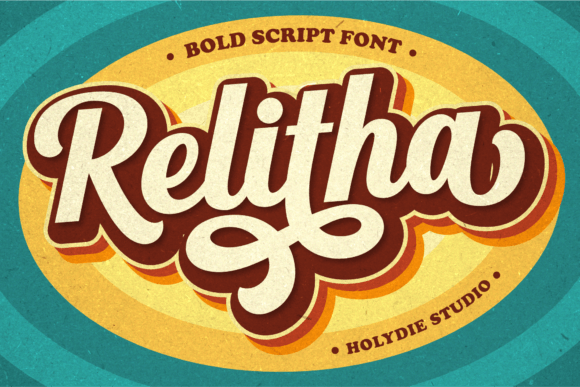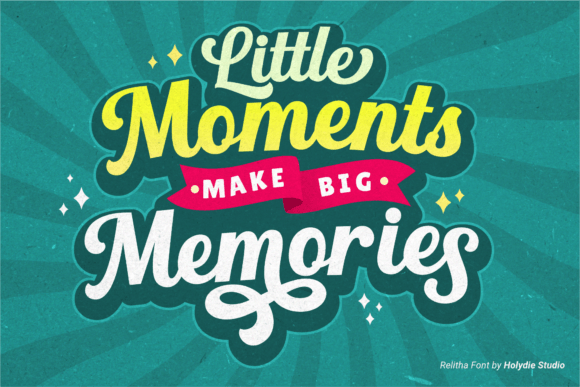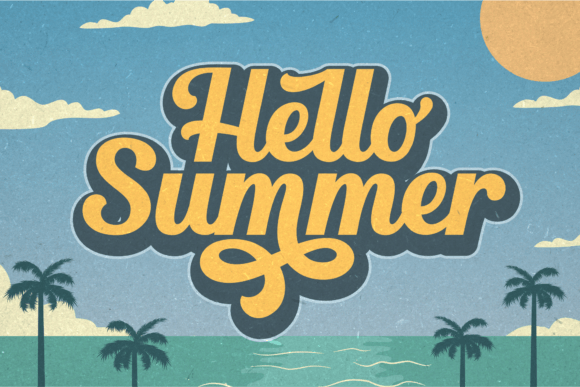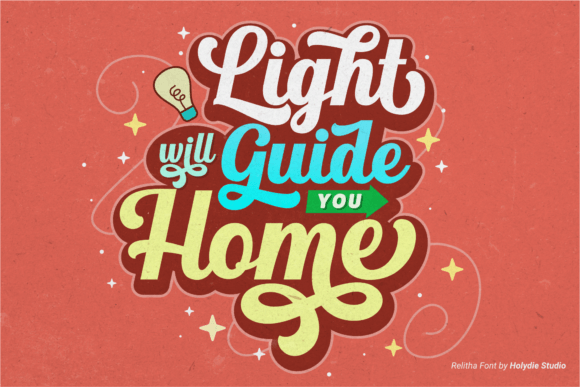
Relitha Font: Groovy Retro Script for Nostalgic Designs & Branding!
About the Relitha Font
Introducing the Relitha Font, a beautifully crafted typeface designed to elevate your creative projects. Relitha is a vintage retro font inspired by retro typography and lettering in the 70s and 80s combined with a bold typography style.
Relitha’s bold, retro style excels in headlines, logos, and short-form text applications like posters and packaging. Its strong character makes it ideal for brands projecting a confident, nostalgic, or playful image – think vintage clothing lines, retro-themed cafes, or music festivals. Avoid using it for body text or UI elements; its condensed forms and decorative elements hinder readability in longer passages.
Pairing Relitha effectively requires considering its inherent boldness. A clean sans-serif like Open Sans or Montserrat can provide a modern counterpoint for contrast. For a warmer feel, a serif like Playfair Display adds a touch of sophistication. Consider pairing with a script font only sparingly, perhaps for a tagline or small accent, to avoid visual clutter.
Relitha’s personality is best described as confident and playful, with a strong vintage vibe. It’s versatile within its retro style, offering both a bold statement and a slightly quirky charm.
Relitha Font Example